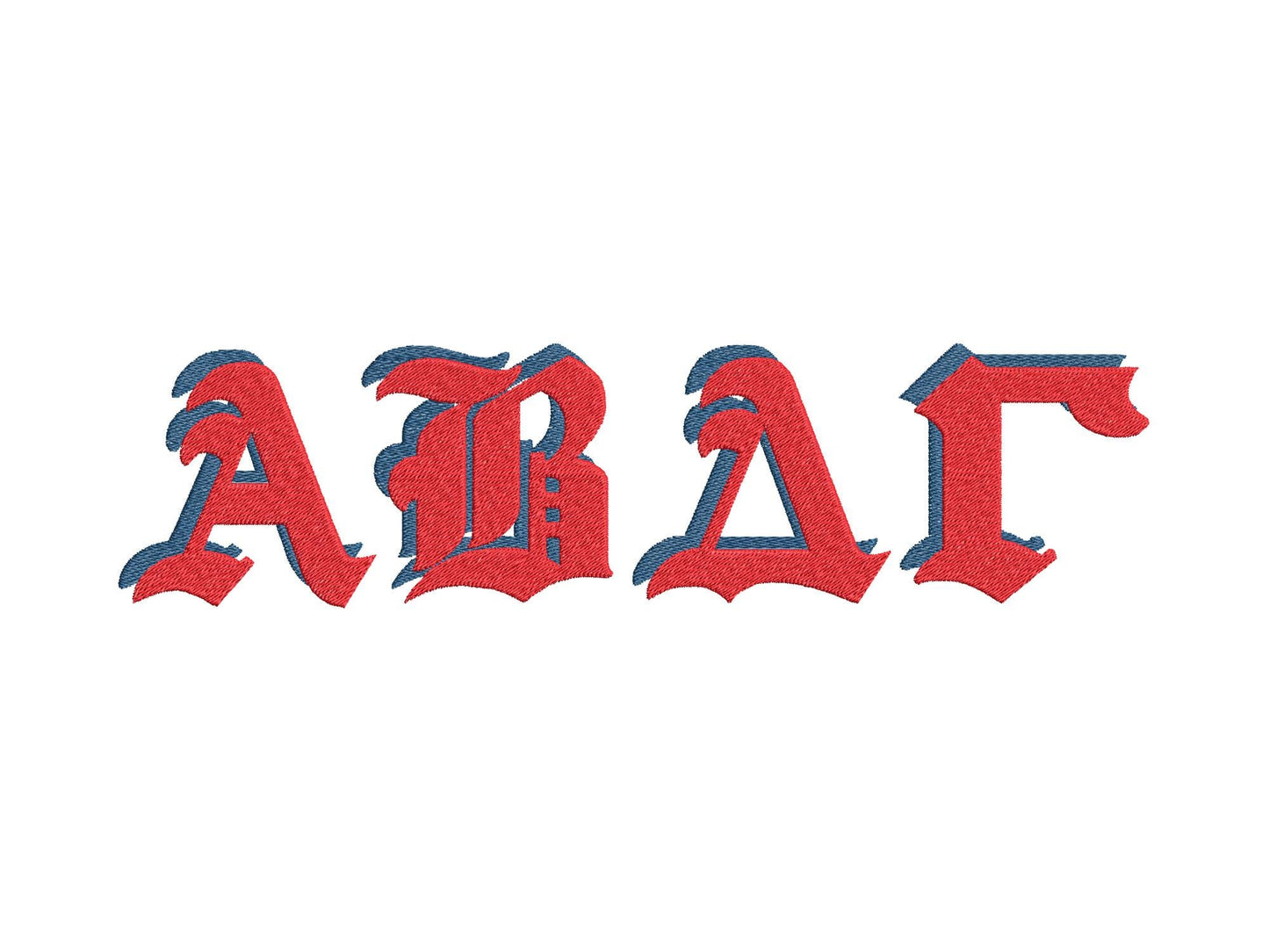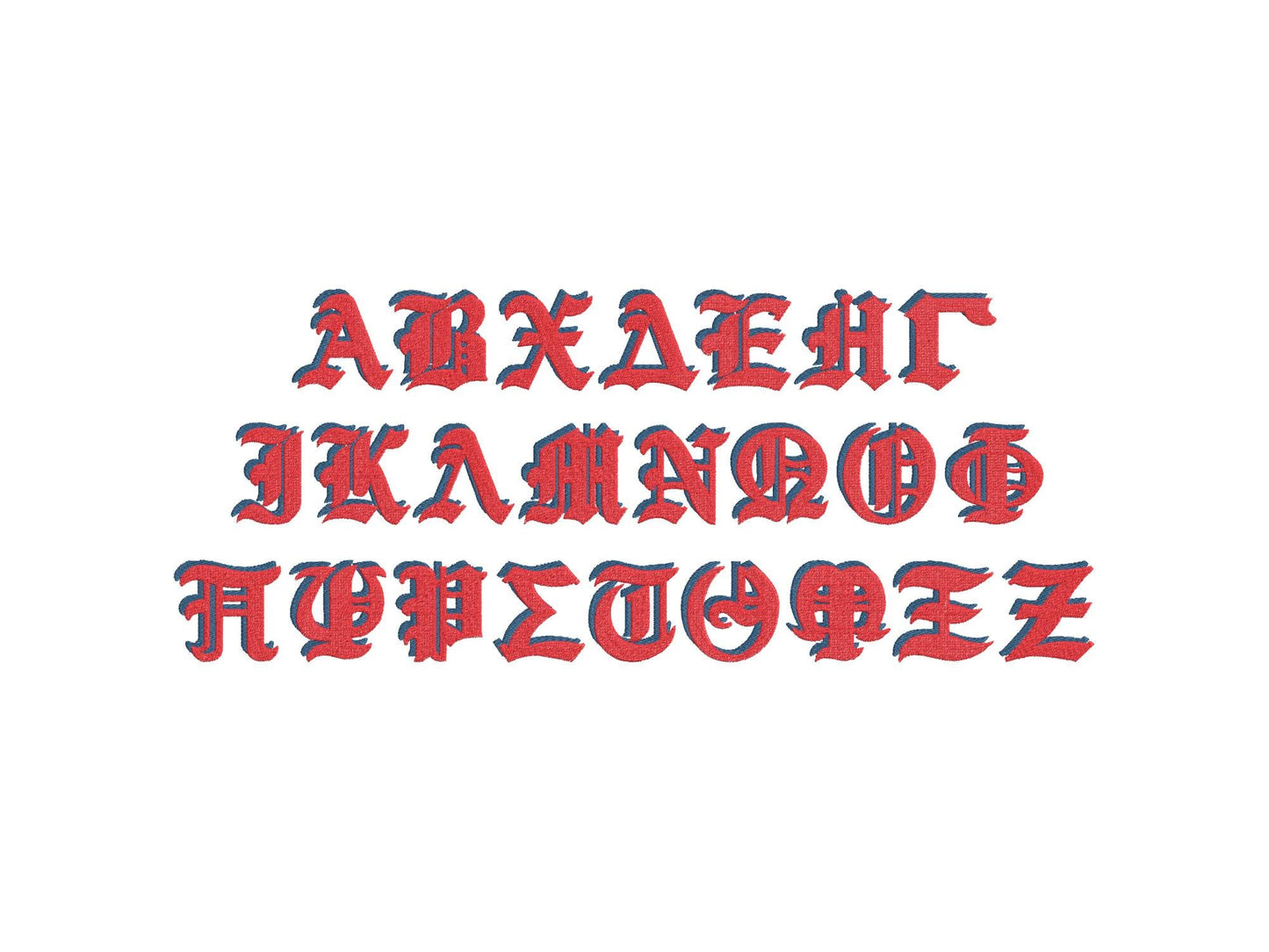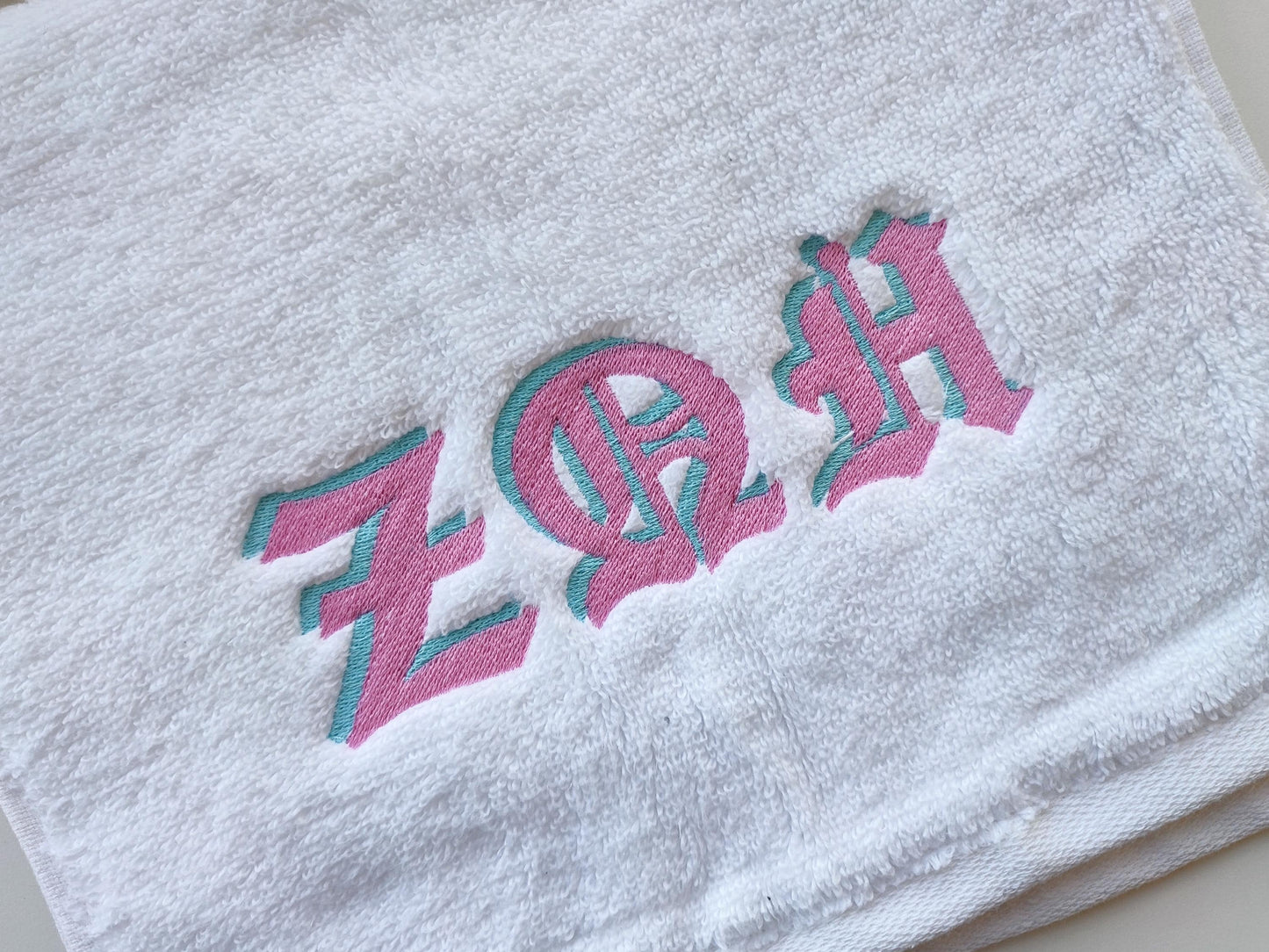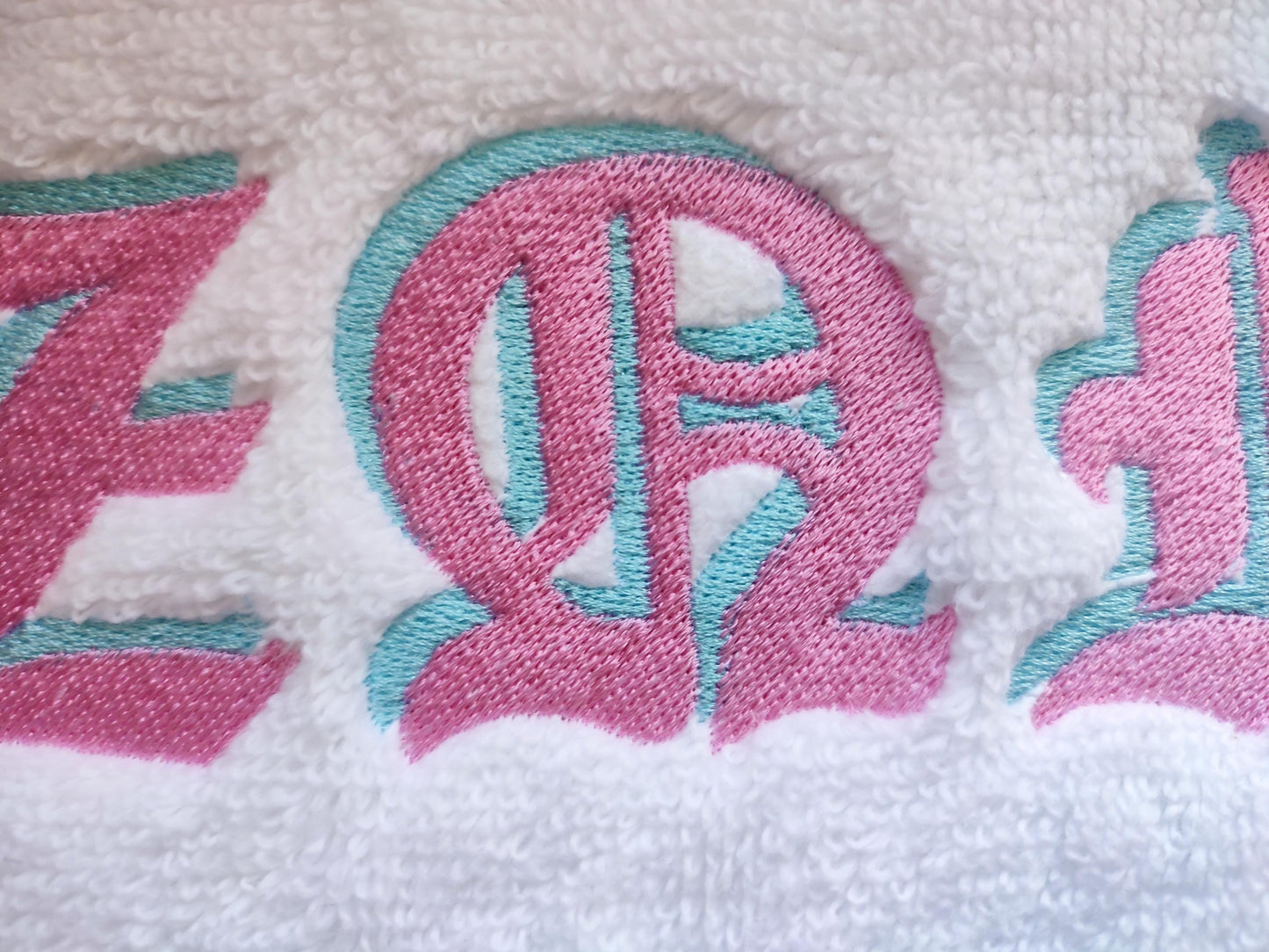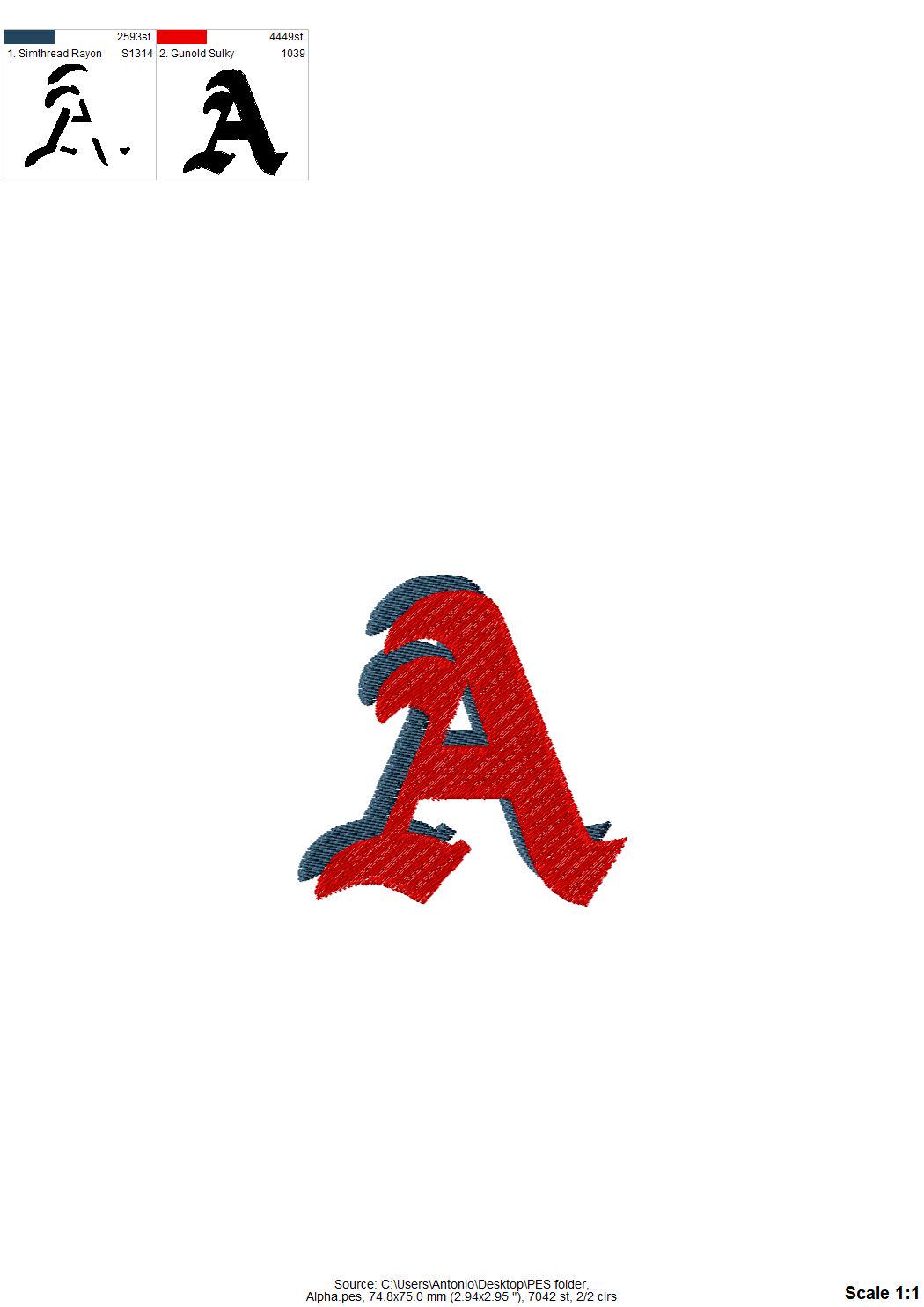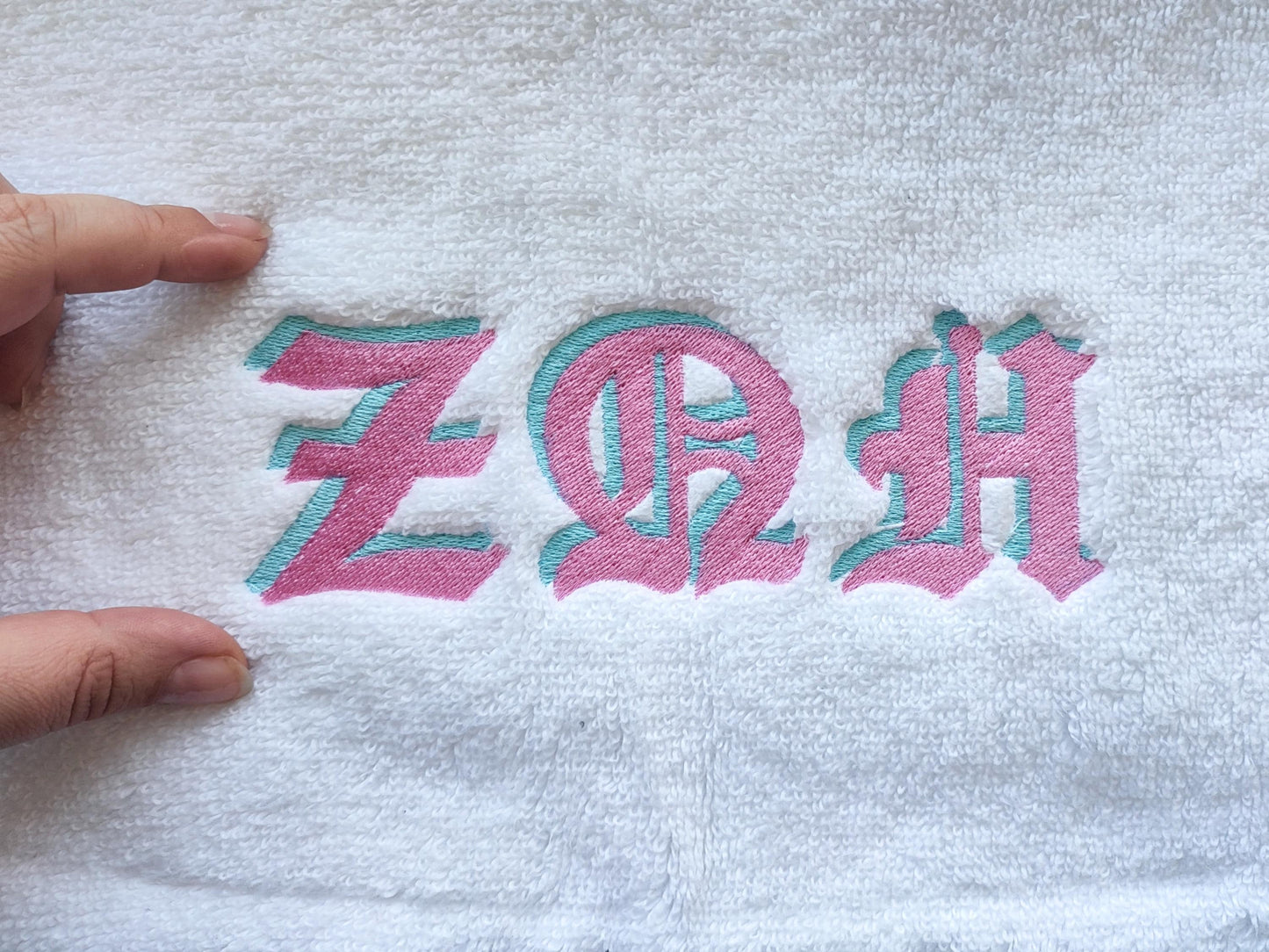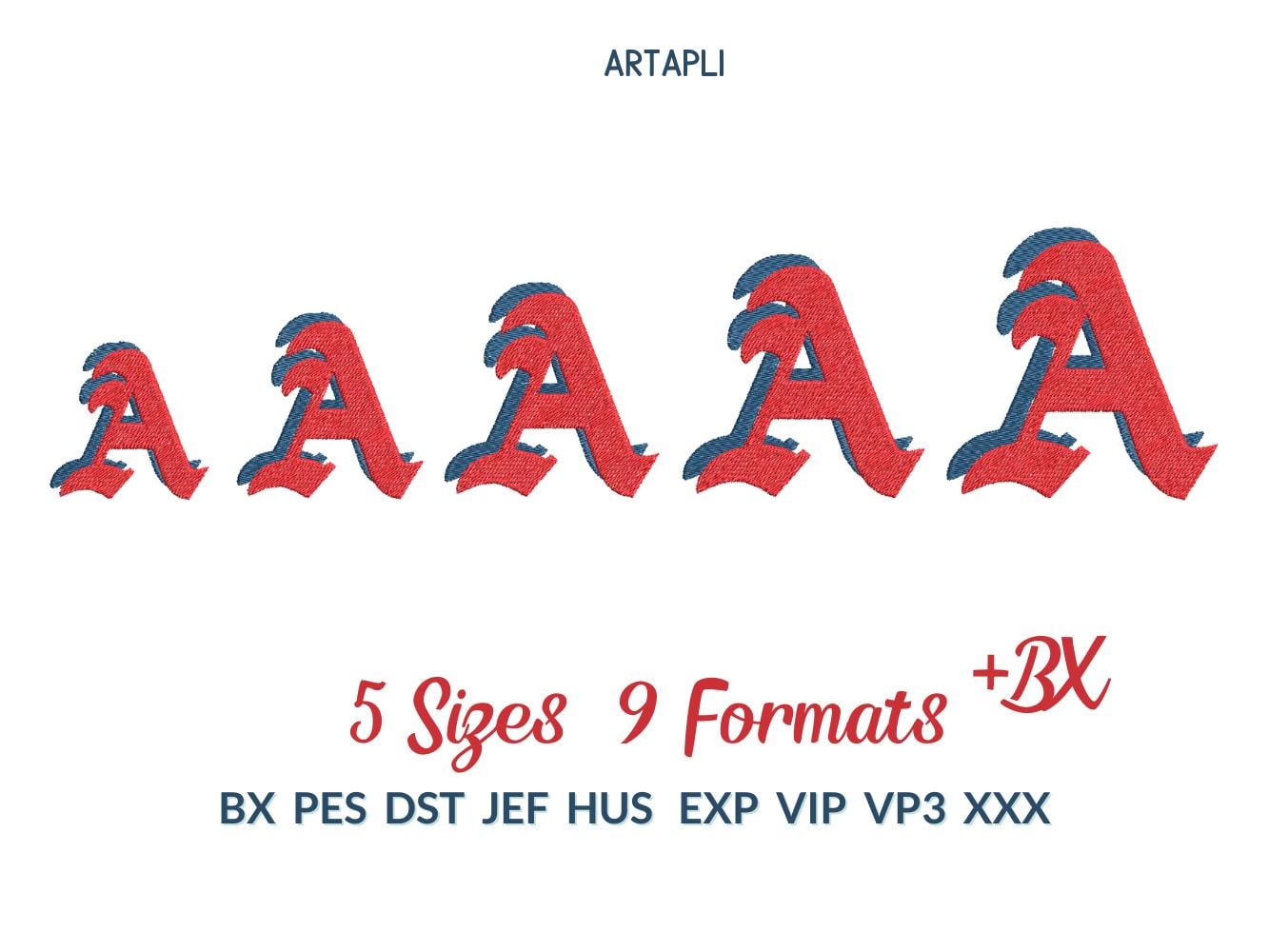
Old Style Shadow Greek Font
All 24 Greek letters in five sizes: 2.2, 2.5, 3, 3.3 and 3.7 inches. Fill stitch with a shadow.
- 24 Greek letters, old-style shadow
- 5 sizes, 2.2 to 3.7 in